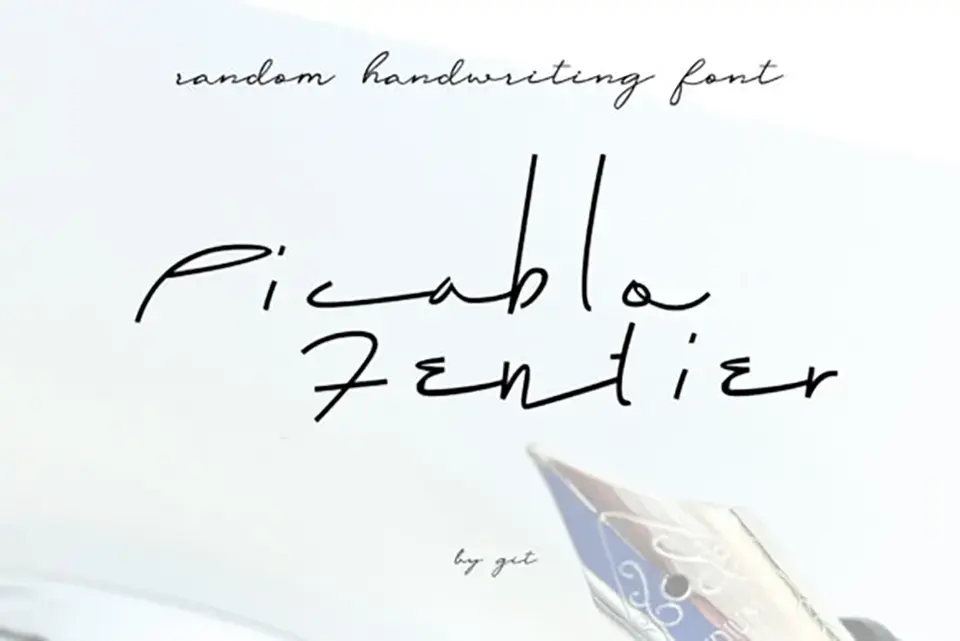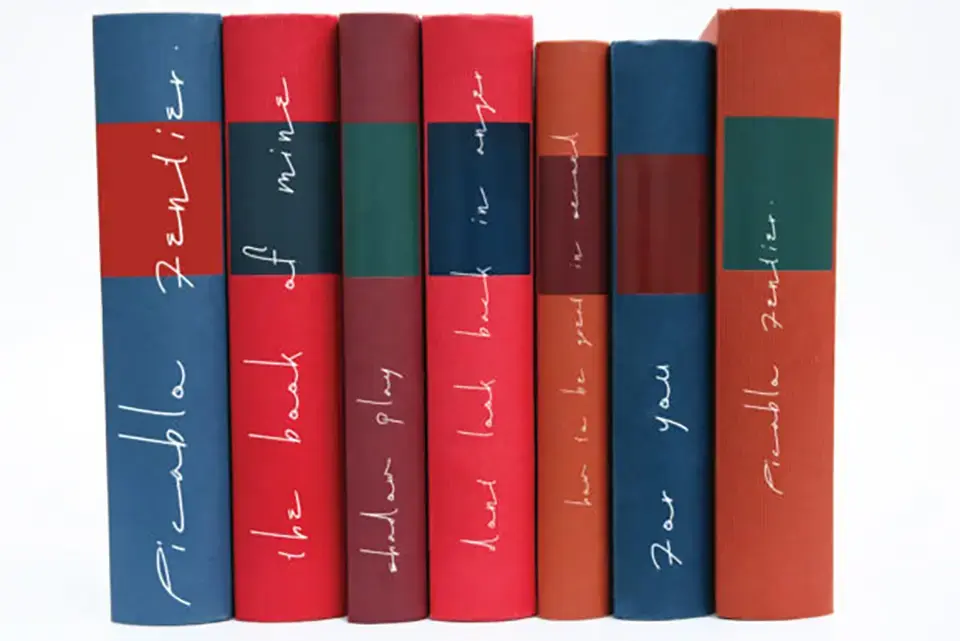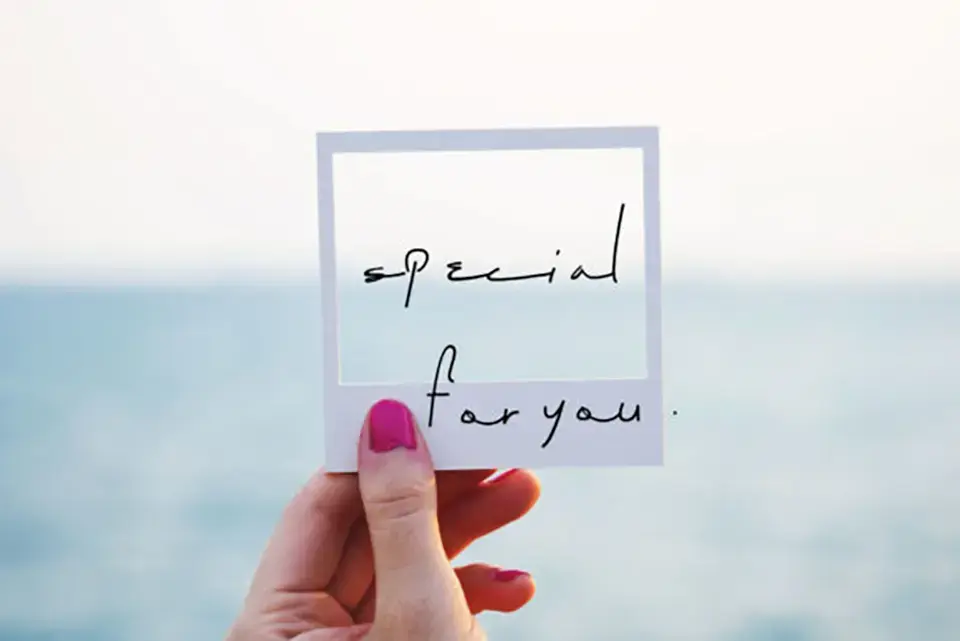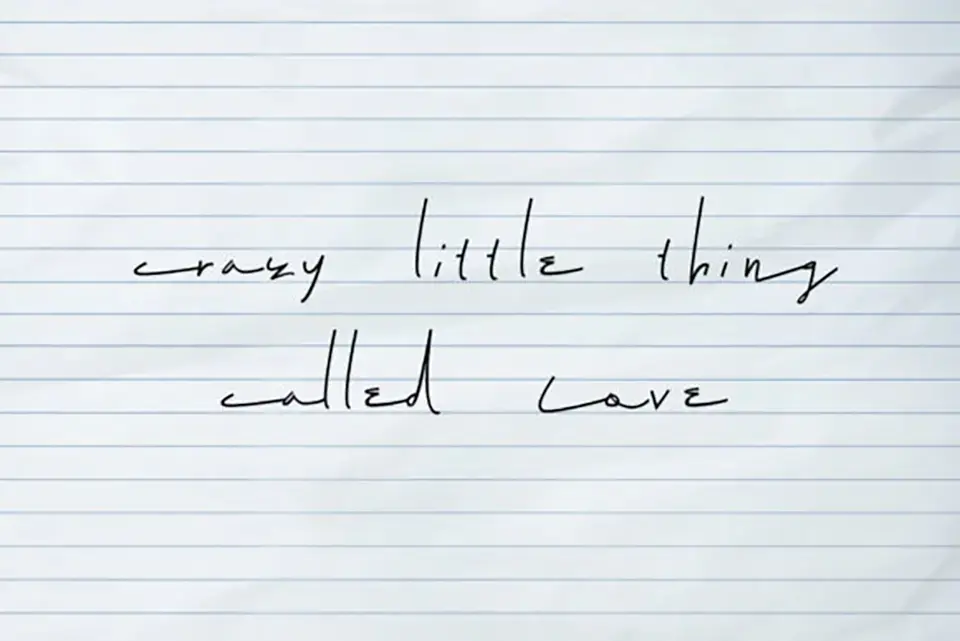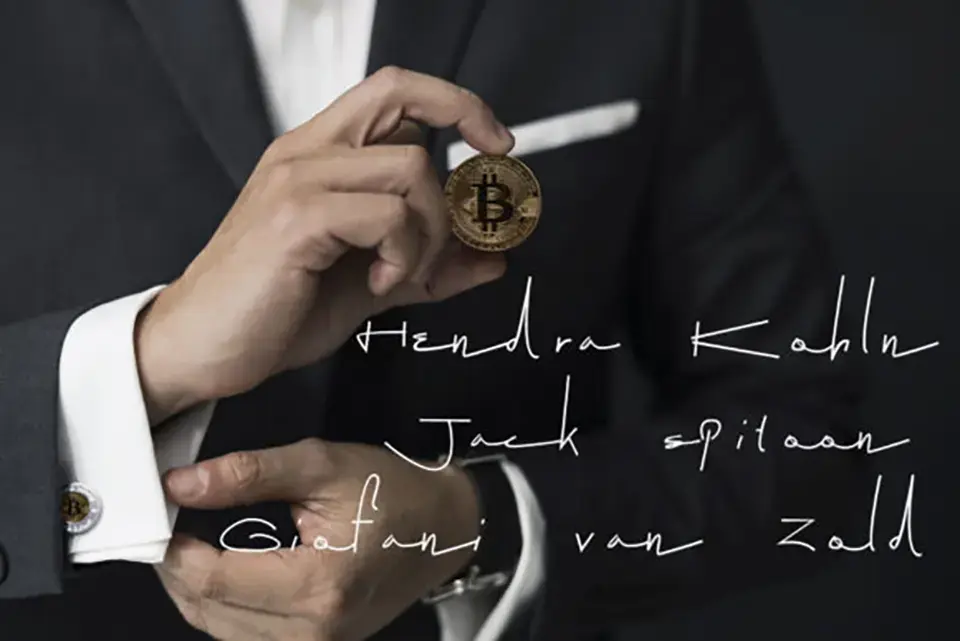
Picablo Fentier Font
Designed by Sigit Nur Wicaksono
Picablo Fentier is an expressive handwritten typeface capturing the spontaneous rhythm of real penmanship. Crafted with flowing strokes, a slightly irregular baseline, and natural spacing, it delivers an undeniably artistic aesthetic. The overall impression is approachable and friendly, intentionally stepping away from traditional calligraphy to embrace a casual, personal vibe.
This lettering style excels in lifestyle branding, custom signature marks, and engaging social media quotes where a human connection is essential. Conversely, its loose, organic nature compromises legibility at smaller sizes, meaning it falls short when applied to dense paragraphs or strict corporate reports. Compared to highly polished alternatives, Picablo Fentier offers a refreshing, unrefined charm that feels genuinely handcrafted.
– Custom signature marks and personal logos
– Engaging social media quotes and graphics
– Lifestyle brand packaging and merchandise
– Dense paragraphs and long-form editorial content
– Strict, formal corporate brand identities
– Small-scale user interface text
Perfect for branding, logo, and signature, with a artistic and handwritten style.